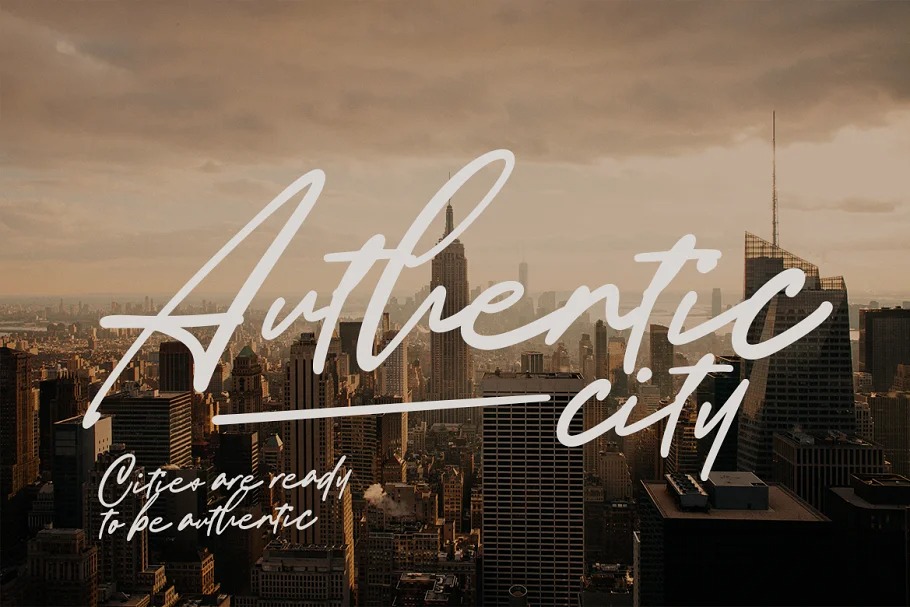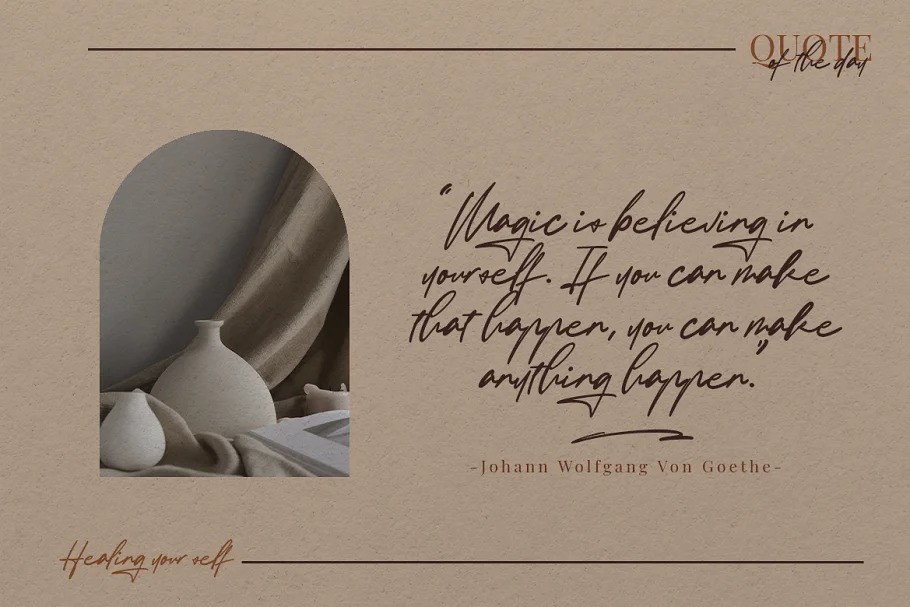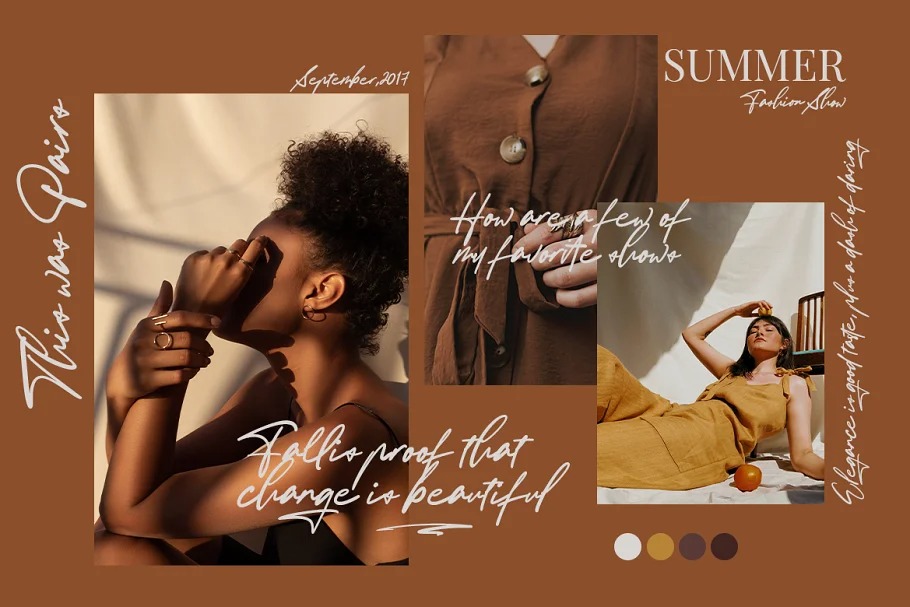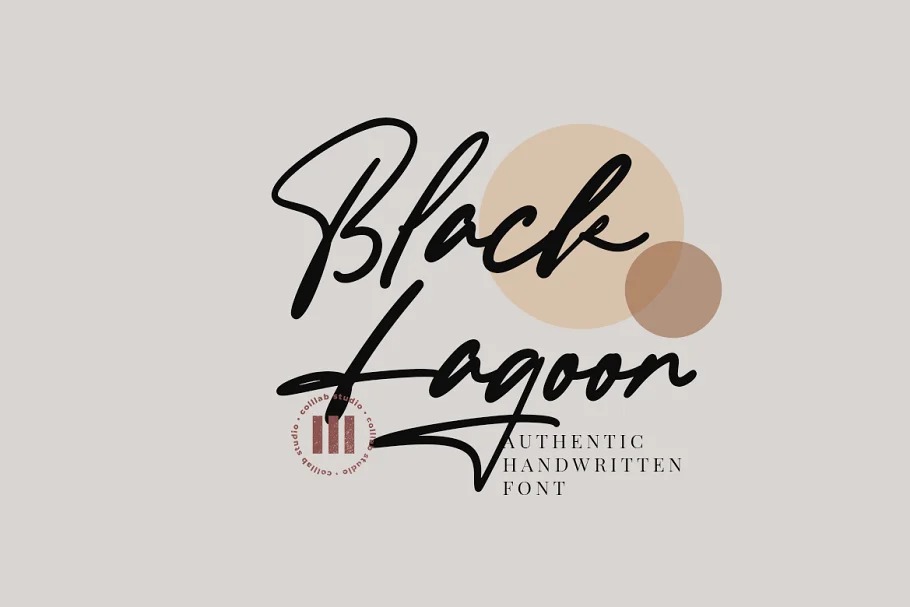
Black Lagoon Font
Black Lagoon Handwritten Font is a flowing handwritten script font crafted & designed by Colllab Studio. This font is made in a modern style, very casual, and suitable for your various design needs. It is the best choice for creating eye-catching logos, branding, and quotes. Add it to your most creative ideas and notice how it makes them come alive!